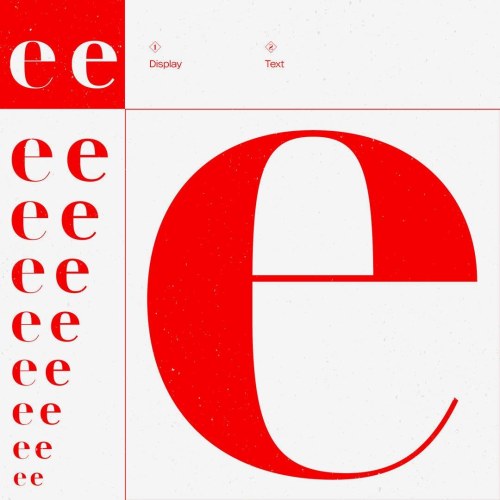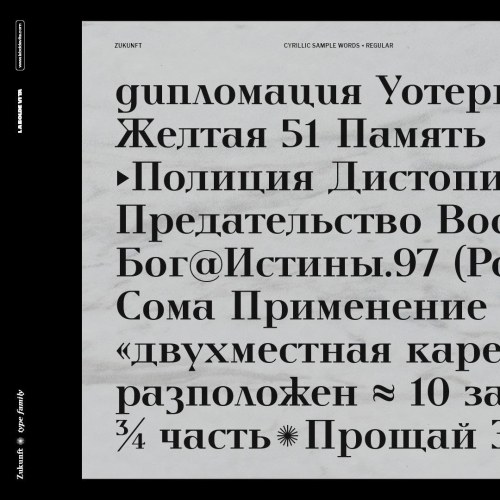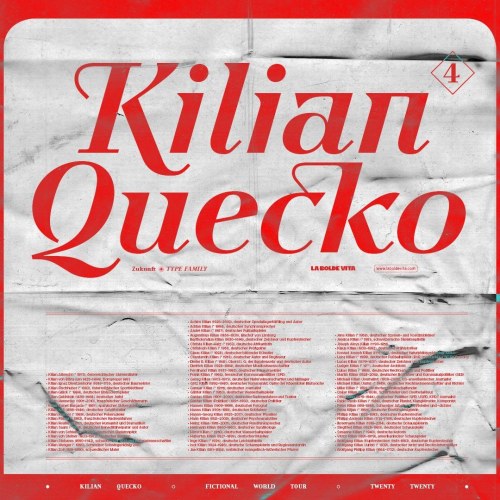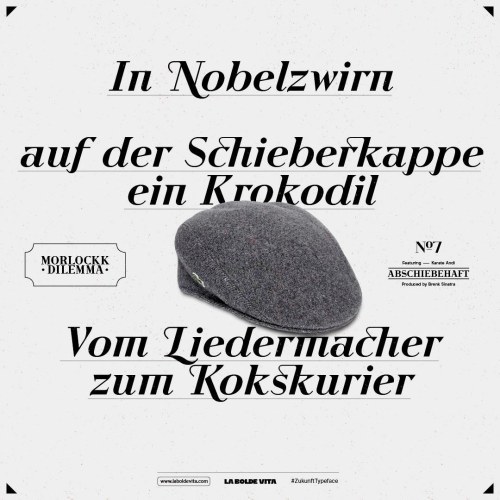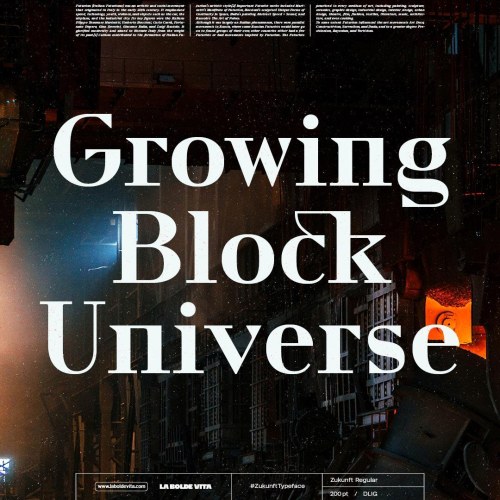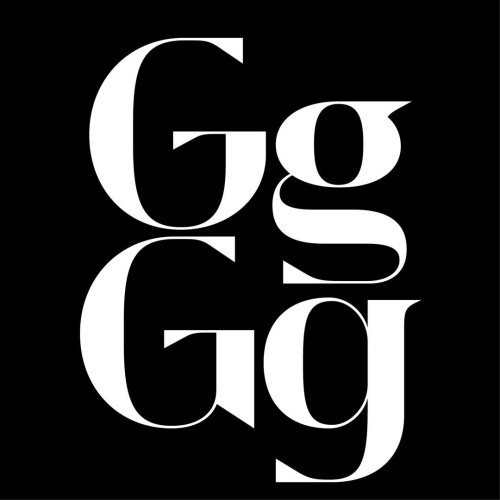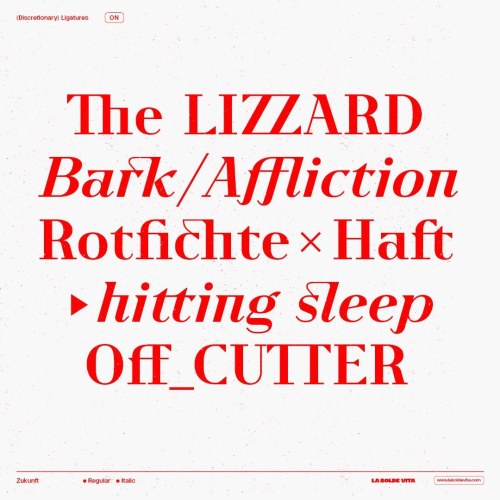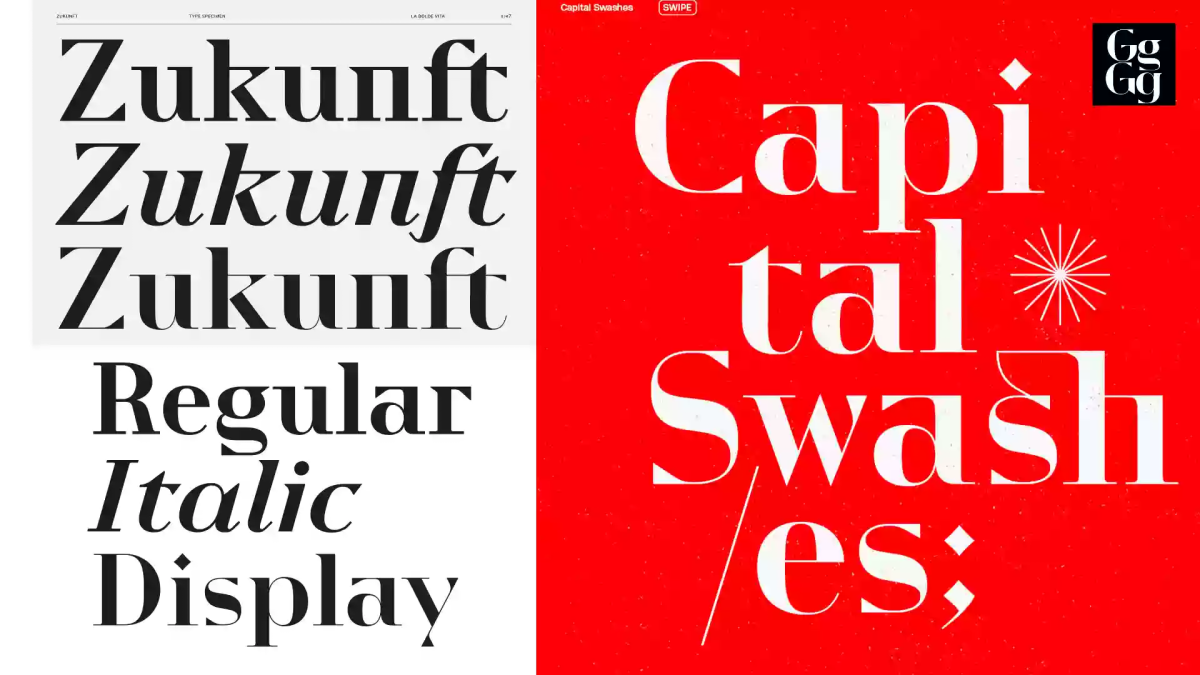
Zukunft Font
Zukunft font family is the revival of the Didone typefaces, designed with the breath of Futuristic look. Though it maintains traditional proportions, the design takes a modern approach: the letters are as if typed on the computer, the serifs are triangulated, the joints are square and the horizontals are straight.
In addition to the Regular style used for body text that is best suited, Italic variant restores the flow and expressiveness necessary when it comes to focused decorative use. Display cut, high contrast and sharp serifs, this looks great for headlines and posters, like this one for instance.
If compared to our other designs, Zukunft is rather conservative but it can be used in almost any design project. Whether you are using short paragraphs, a title, or branding, the many choices here will suit and be slightly different from the rest. Of course you’d better explore the many possibilities of the many alternates for the letters and figures, for special symbols and italic capital swashes of Zukunft.
Where Zukunft Font works best
Zukunft Font gives long-form text a classic, trustworthy rhythm — ideal for magazine spreads, annual reports and book interiors.
Pair Zukunft Font with generous letter-spacing for wordmarks in fashion, hospitality, wine and jewellery branding.
Use Zukunft Font for slide titles in Keynote, PowerPoint or Google Slides to add authority without looking dated.